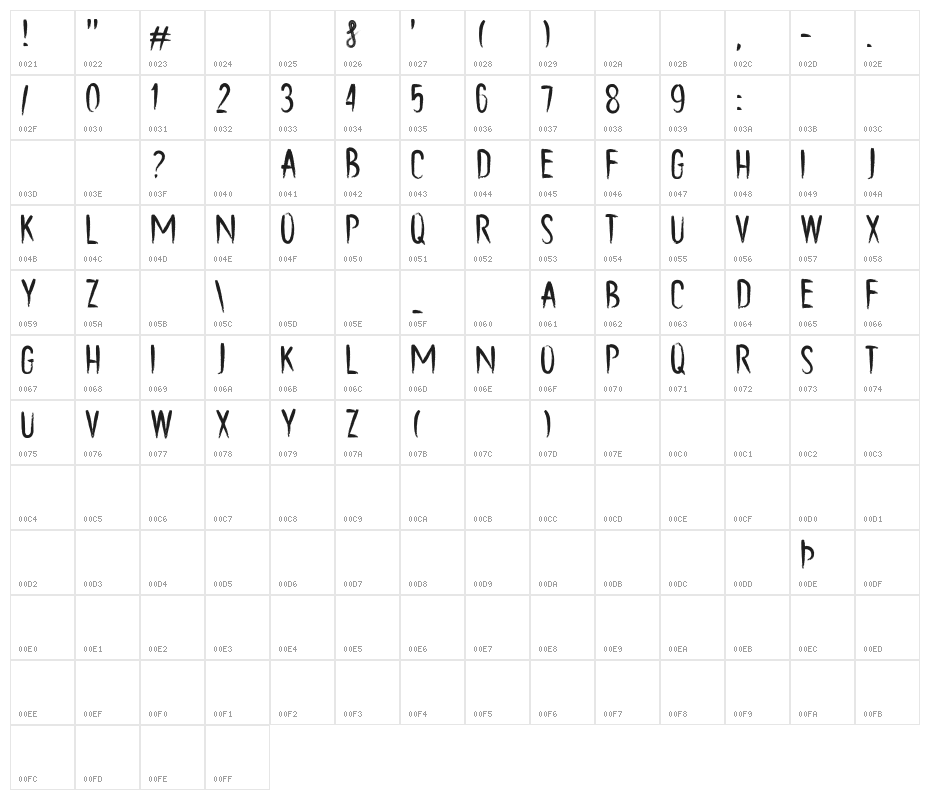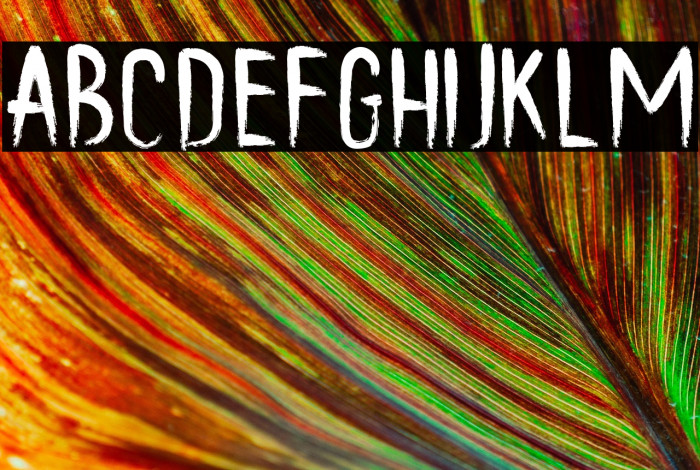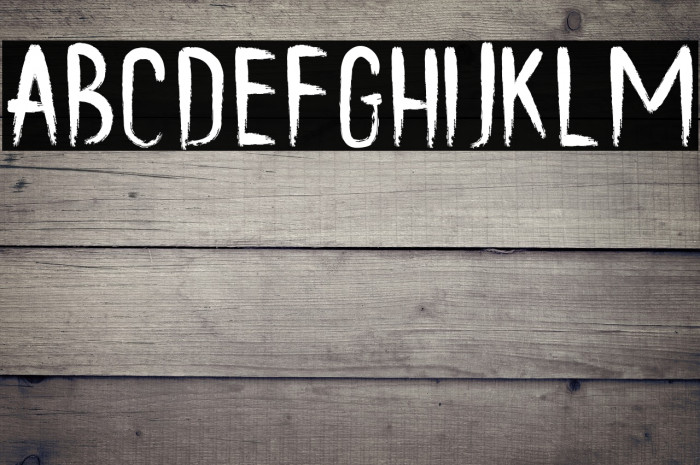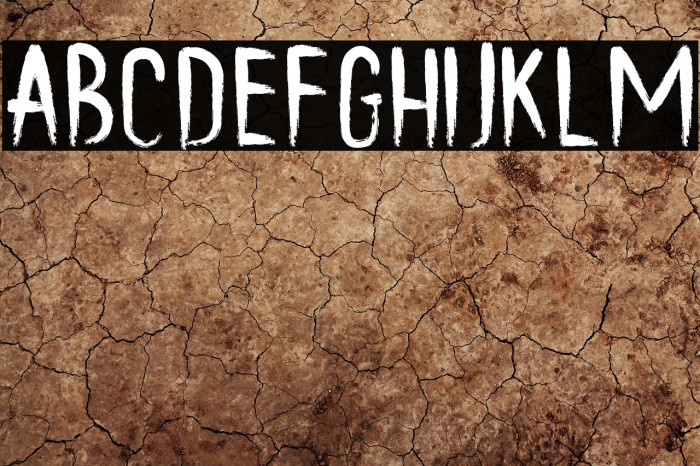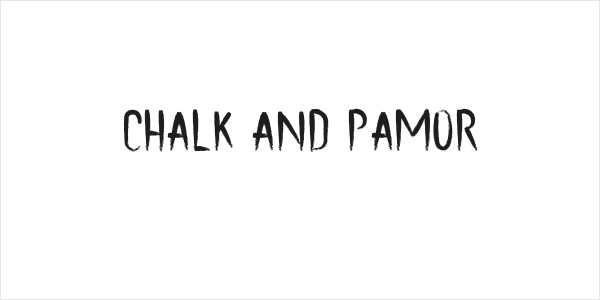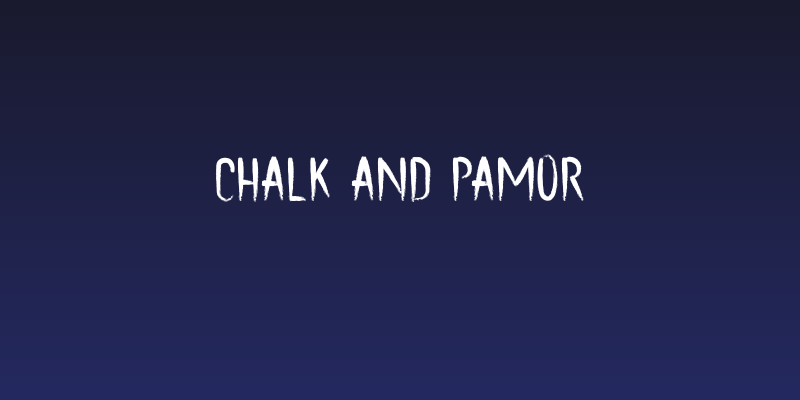
Chalk and Pamor Font
Chalk and Pamor Description
This font exudes a hand-drawn, artistic style reminiscent of chalk writing on a blackboard. The characters have a rough, textured appearance, giving them a dynamic and energetic feel. Each letter is uniquely crafted with varying stroke thickness, adding to the organic and spontaneous look. The uppercase and lowercase letters maintain a consistent style, with slightly irregular edges that enhance the handmade aesthetic. The numbers and special characters follow the same design principles, ensuring a cohesive visual experience. This font is perfect for projects that require a personal touch or a creative flair.
| Overall Style | Artistic |
| Use Case | Headlines, Posters, Branding |
| Proposed Projects | Ideal for educational materials, creative posters, cafe menus, and artistic branding. |